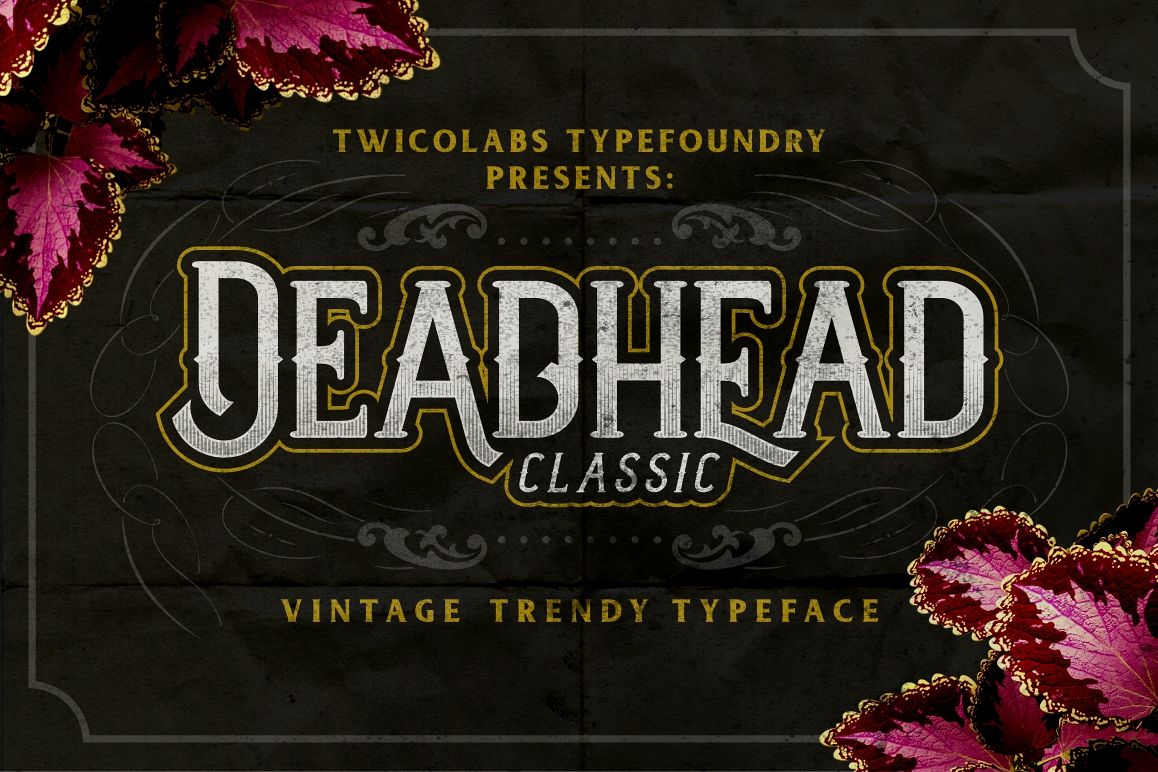
Deadhead Classic
Deadhead Classic is a fun and playful serif typeface inspired from old-advertising letters in 60 - 70s.
Suits best for your vintage-themed designs. Loaded with 300+ glyphs, and also...
Packed with OpenType Features such as alternate characters, stylistic sets, titling, terminal forms, etc to let you explore your favorite type-combinations.